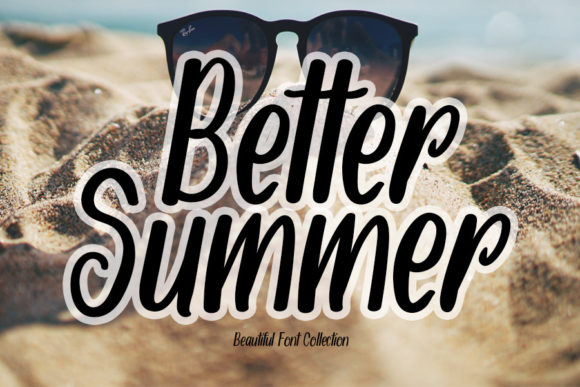
Introducing Better Summer Font: The Enchanting Script that Invokes a Whimsical Summer's Eve
Immerse yourself in the enchanting embrace of Better Summer Font, a script font that exudes a captivating allure. Its meticulously crafted curves and delicate flourishes dance across the page, evoking the magic of a warm summer twilight.
With Better Summer Font, your creative visions take flight. Whether you seek to craft captivating Instagram posts, lend an air of elegance to your DIY projects, or simply express your boundless imagination, this font empowers you to transform ordinary words into extraordinary works of art.
Step into a realm where imagination reigns supreme. Better Summer Font's ethereal presence adds a touch of whimsy to every creation, casting a spell upon your audience. Let the enchanting strokes of this font guide you through a journey of creativity, where the boundaries of your imagination dissolve, and the possibilities become infinite.
Indulge in the captivating beauty of Better Summer Font today, and witness the metamorphosis of your creative endeavors into masterpieces that leave an enduring impression.
As a creation of the talented shiddiq.art, Better Summer Font embodies the essence of elegance and creativity. Its versatility knows no bounds, making it the perfect choice for a multitude of projects. Experience the magic of this font firsthand and elevate your creations to new heights.
Don't let this enchanting opportunity pass you by. Embrace the allure of Better Summer Font and embark on a creative odyssey filled with endless possibilities.